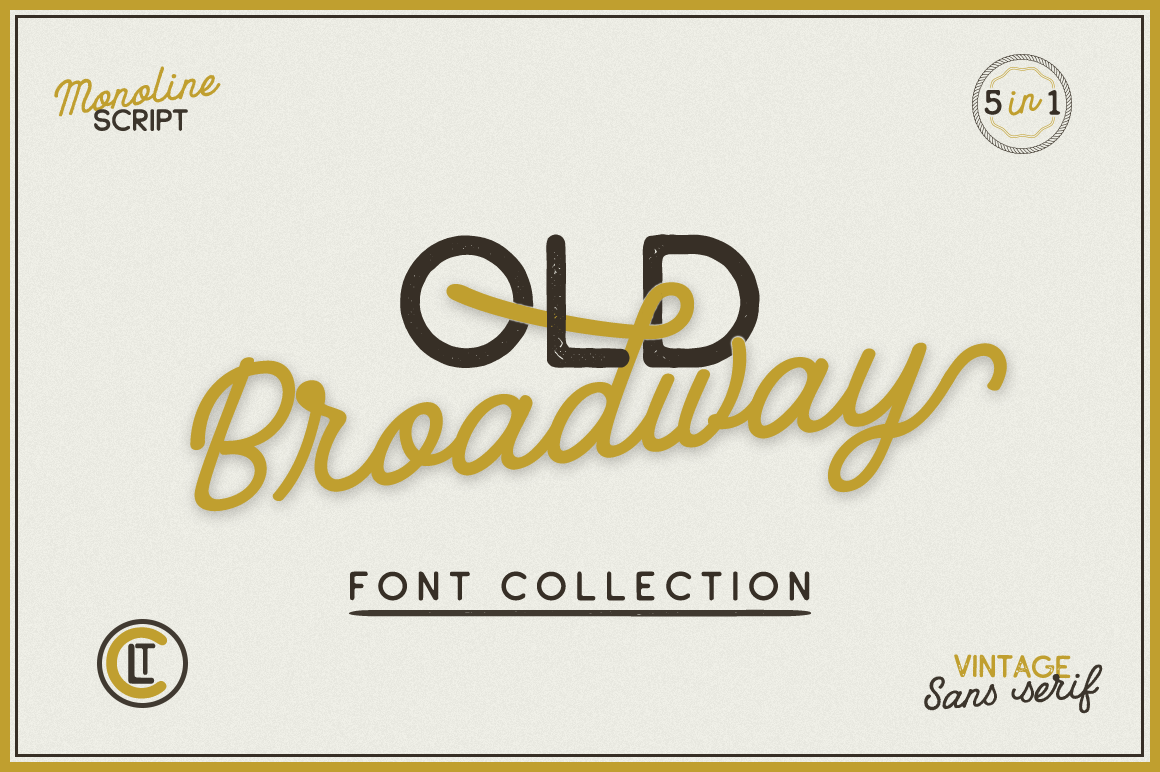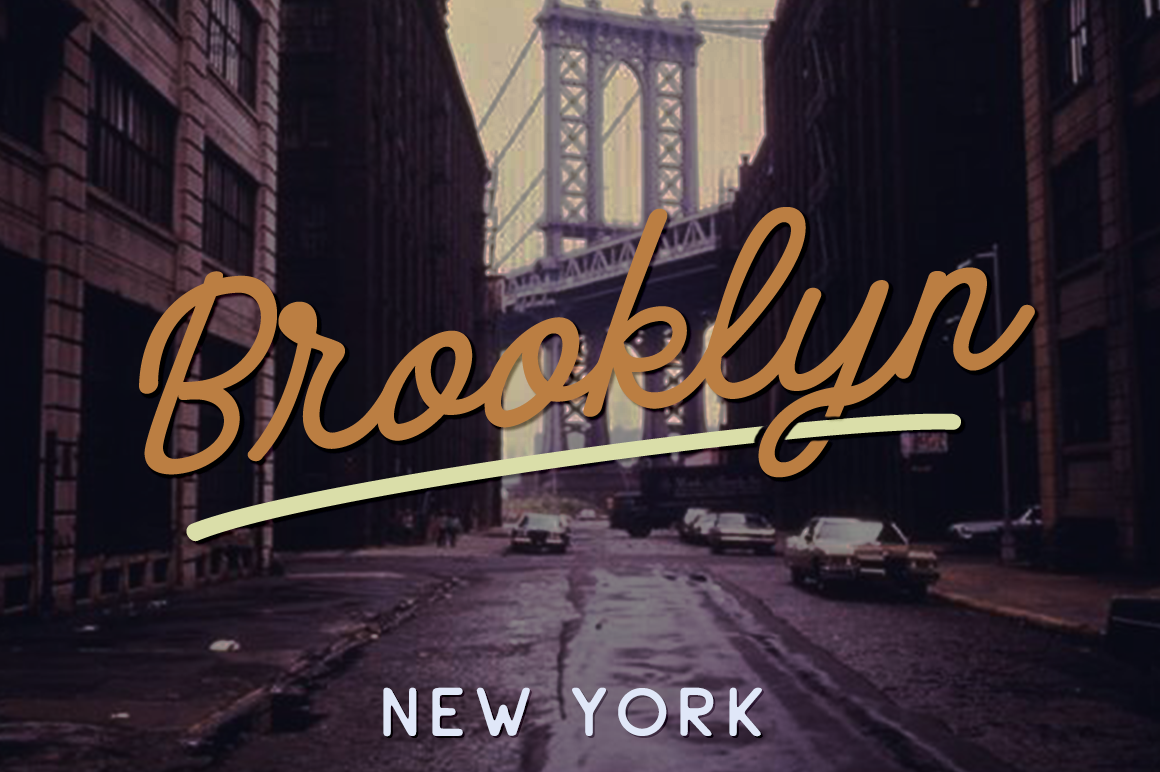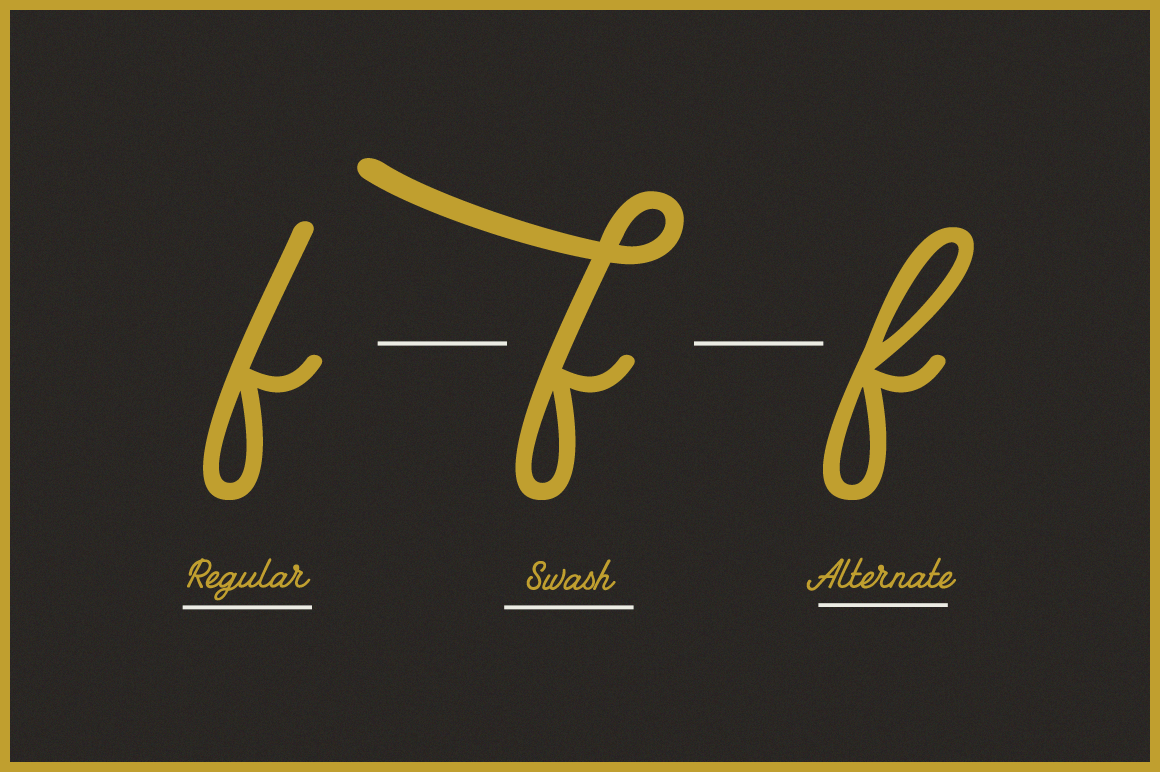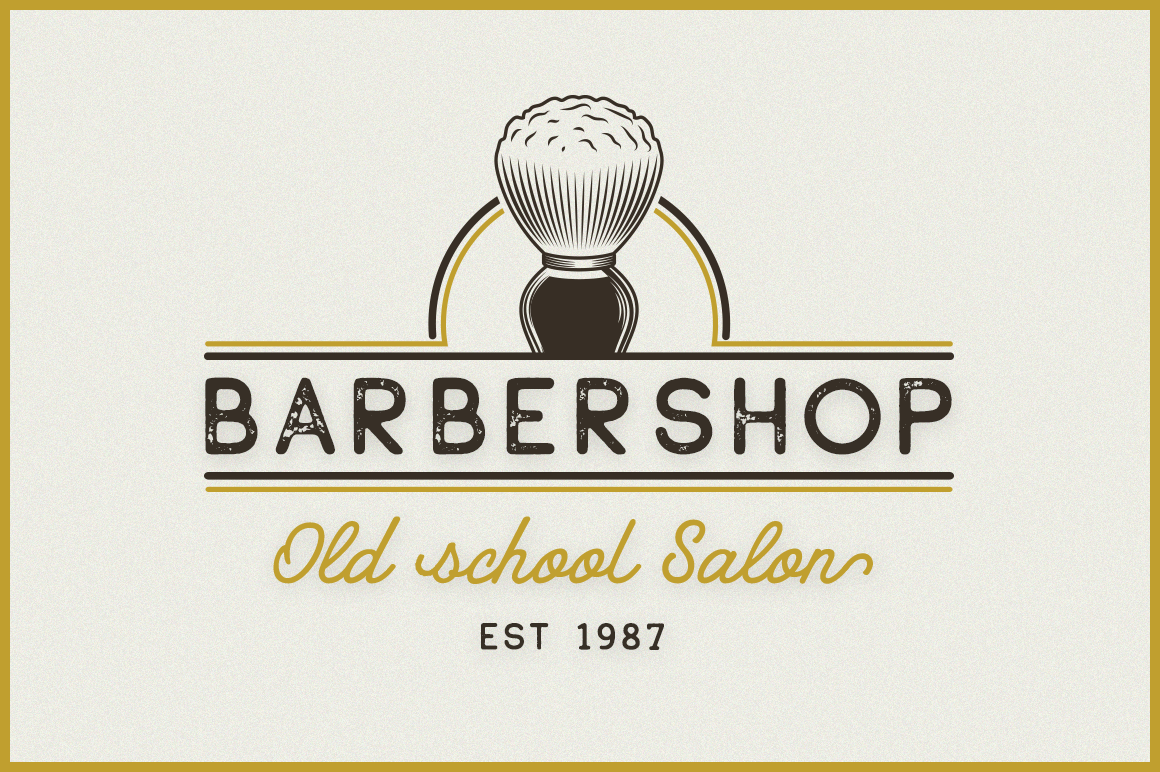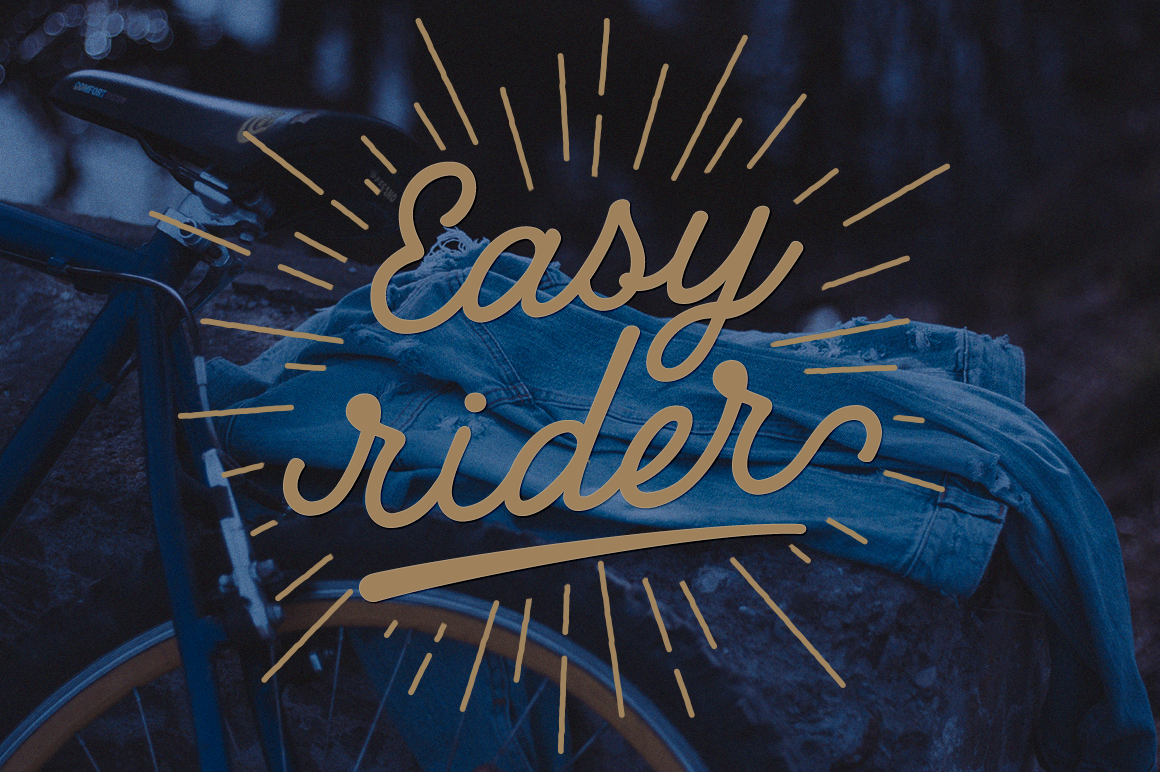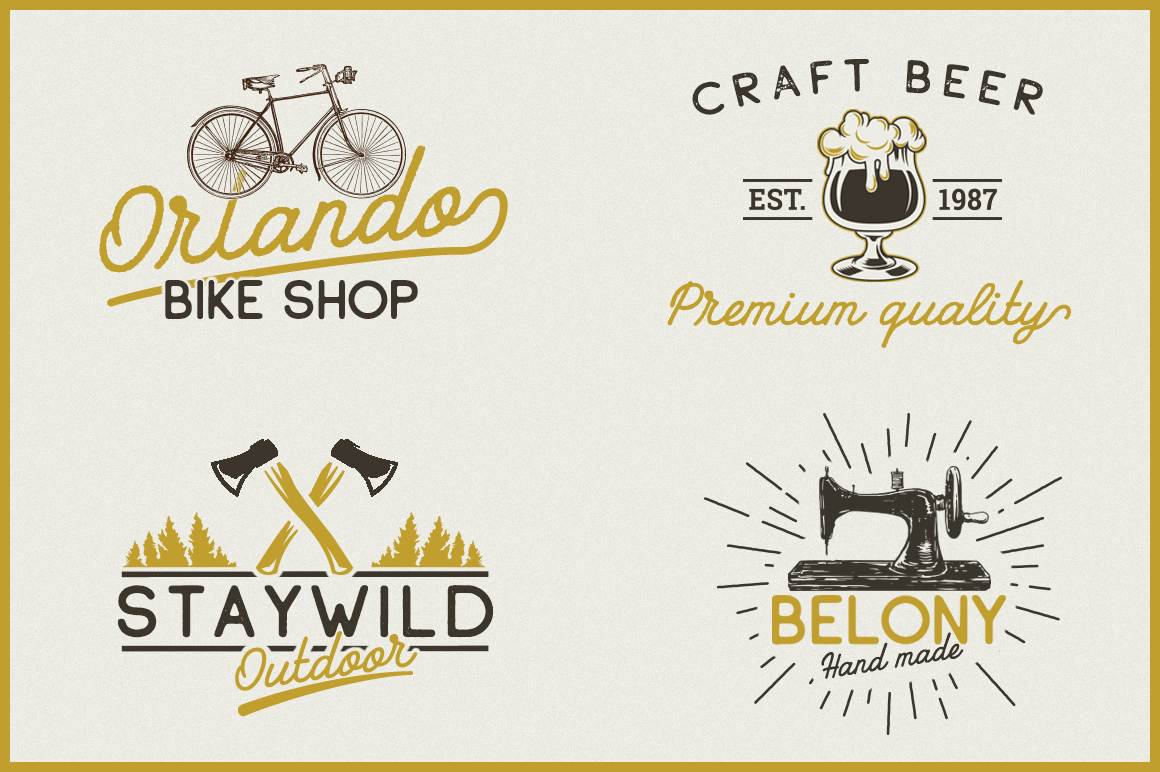
Old Broadway Font
About Old Broadway Font
Old Broadway, a beautiful vintage font, comes in two treatments- regular and rough. This is a hand drawn typeface, inspired by old logotypes. Playful, monoline, modern, and multi-purpose, this font set is perfect for a large range of styles and project types given its robust style options.